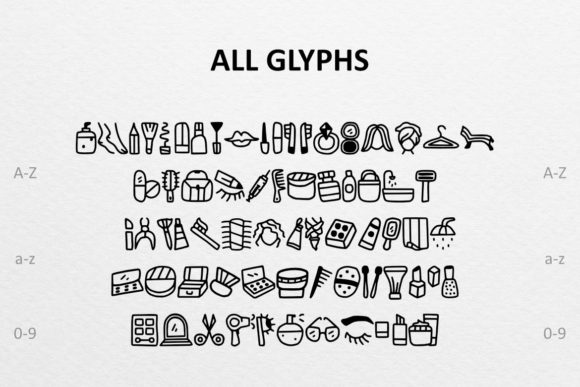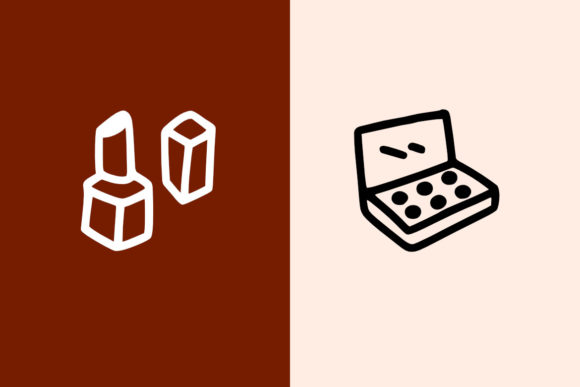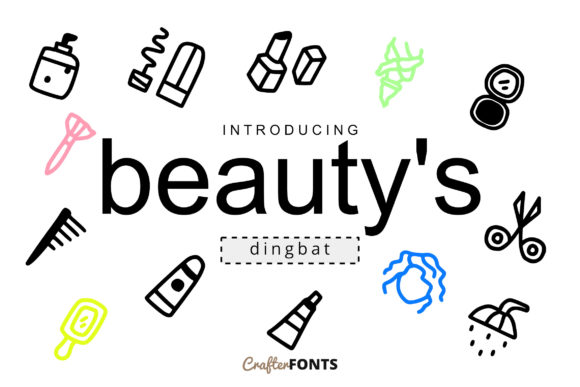
Beauty’s Doodle Dingbat Font: A Fun and Versatile Font for Designers and Crafters
Are you looking for a font that can add a touch of whimsy and playfulness to your designs? Look no further than Beauty’s Doodle Dingbat Font. This cool and suitable dingbats font is perfect for a variety of projects, from logos and ornaments to crafts and DIY projects. In this article, we’ll take a closer look at Beauty’s Doodle Dingbat Font and explore its features, benefits, and uses.
What is Beauty’s Doodle Dingbat Font?
Beauty’s Doodle Dingbat Font is a unique and creative font that features 62 symbols, each carefully designed to add a touch of personality and style to your projects. The font is perfect for designers, crafters, and DIY enthusiasts who want to create unique and eye-catching designs. Whether you’re working on a logo, brochure, or craft project, Beauty’s Doodle Dingbat Font is a great choice.
Key Features of Beauty’s Doodle Dingbat Font
- 62 Unique Symbols: Beauty’s Doodle Dingbat Font comes with 62 carefully designed symbols, each one unique and ready to use.
- Cool and Suitable Design: The font features a cool and suitable design that’s perfect for a variety of projects, from logos and ornaments to crafts and DIY projects.
- Versatile: Beauty’s Doodle Dingbat Font is versatile and can be used for a wide range of projects, from digital designs to print projects.
Benefits of Using Beauty’s Doodle Dingbat Font
There are many benefits to using Beauty’s Doodle Dingbat Font in your designs. Here are just a few:
- Adds Personality to Your Designs: Beauty’s Doodle Dingbat Font adds a touch of personality and style to your designs, making them stand out from the crowd.
- Perfect for DIY Projects: The font is perfect for DIY projects, such as crafting, scrapbooking, and journaling.
- Easy to Pair with Other Fonts: Beauty’s Doodle Dingbat Font is easy to pair with other fonts, making it perfect for use in combination with other typefaces.
- Scalable: The font is scalable, making it perfect for use in a variety of projects, from small crafts to large-scale designs.
Uses for Beauty’s Doodle Dingbat Font
Beauty’s Doodle Dingbat Font is a versatile font that can be used for a wide range of projects, including:
- Logos: Use Beauty’s Doodle Dingbat Font to create unique and eye-catching logos for your business or brand.
- Ornaments: The font is perfect for creating ornaments, such as Christmas decorations, birthday decorations, and more.
- Crafts: Beauty’s Doodle Dingbat Font is perfect for use in crafts, such as scrapbooking, journaling, and card making.
- DIY Projects: The font is perfect for use in DIY projects, such as crafting, woodworking, and more.
Tips for Using Beauty’s Doodle Dingbat Font
Here are a few tips for using Beauty’s Doodle Dingbat Font in your designs:
- Experiment with Different Sizes: Experiment with different sizes to find the perfect size for your project.
- Pair with Other Fonts: Pair Beauty’s Doodle Dingbat Font with other fonts to create a unique and eye-catching design.
- Use in Combination with Images: Use Beauty’s Doodle Dingbat Font in combination with images to create a visually appealing design.
In conclusion, Beauty’s Doodle Dingbat Font is a fun and versatile font that’s perfect for designers, crafters, and DIY enthusiasts. With its 62 unique symbols, cool and suitable design, and ease of use, it’s a great choice for a wide range of projects. Whether you’re working on a logo, ornament, or craft project, Beauty’s Doodle Dingbat Font is sure to add a touch of personality and style to your designs.